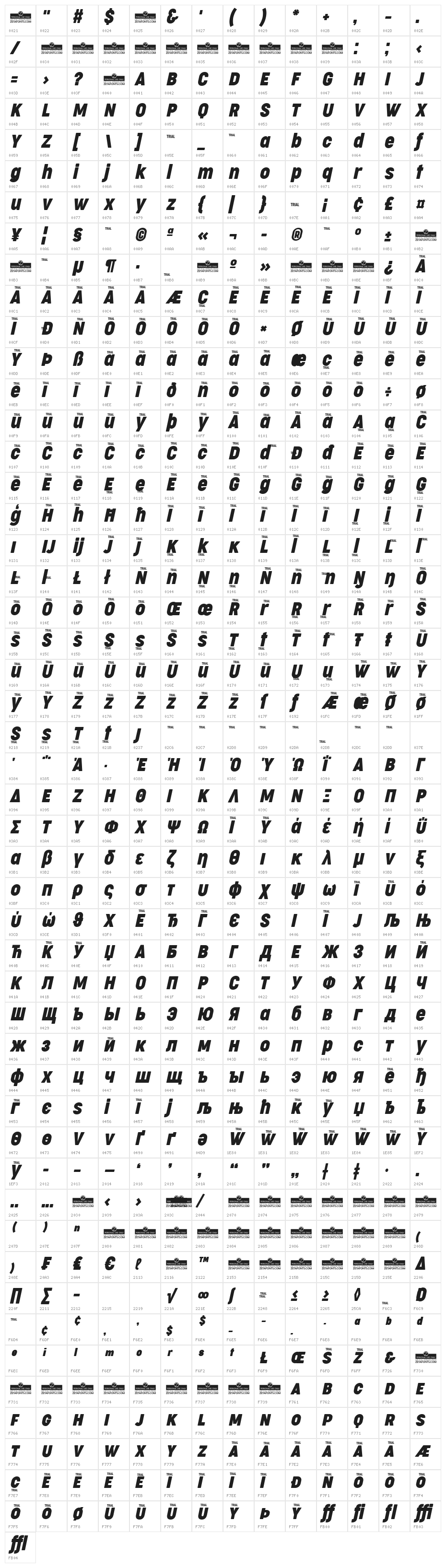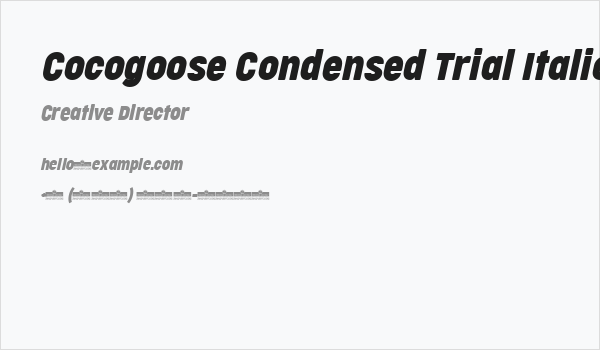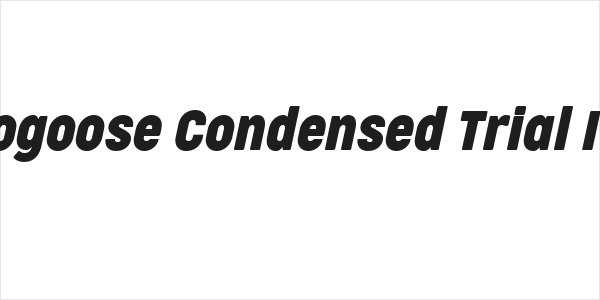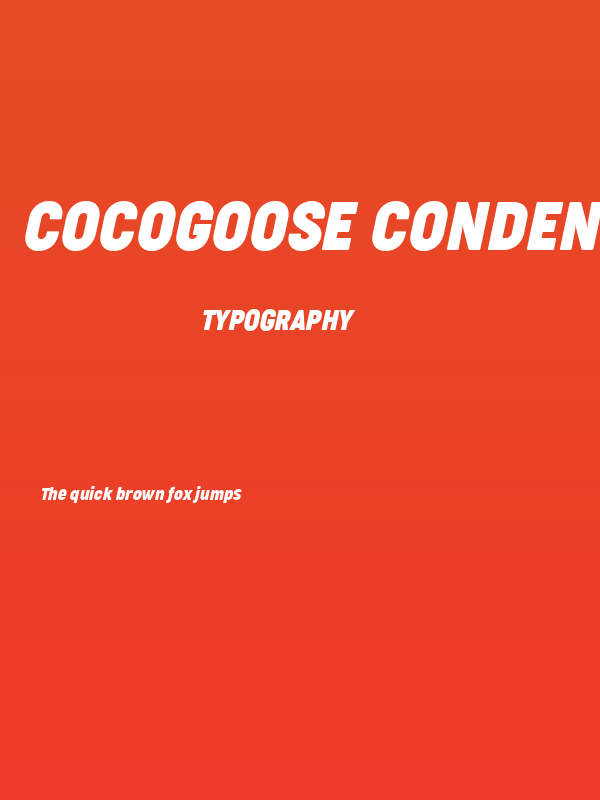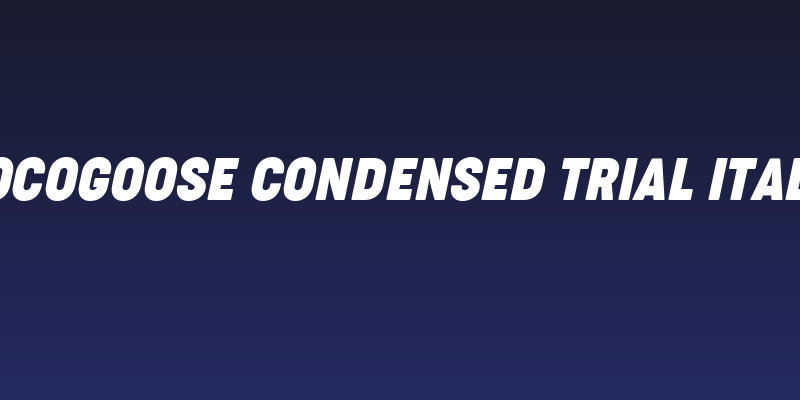
Cocogoose Condensed Trial Italic Font
Cocogoose Condensed Trial Italic Description
This font features a bold and condensed style with a modern flair. The italicized form adds a dynamic and forward-leaning appearance, making it suitable for attention-grabbing headlines and impactful designs. The uppercase and lowercase letters maintain a consistent weight, providing a cohesive look across different text sizes. The numerals and special characters are designed to match the boldness and style of the alphabet, ensuring uniformity throughout. The condensed width allows for efficient use of space, making it ideal for projects where text needs to be prominent yet compact.
| Proposed Projects | Ideal for branding, advertising, posters, and headlines where a strong and modern impact is desired. |